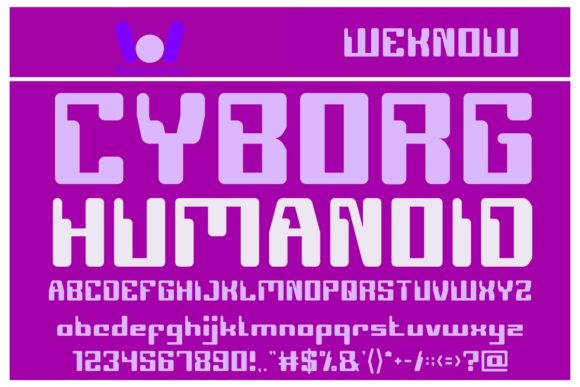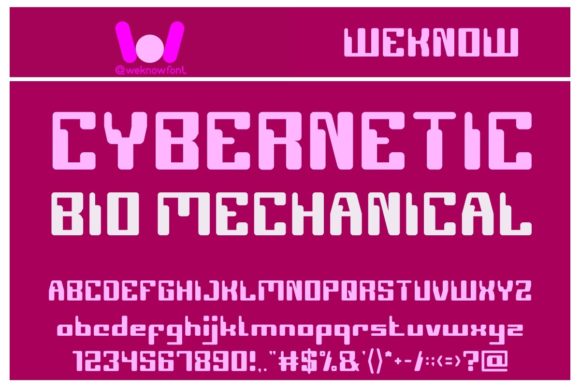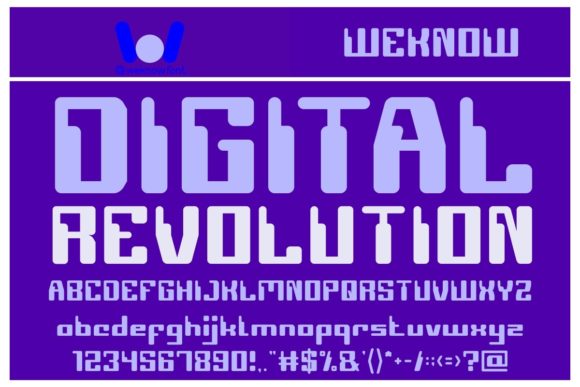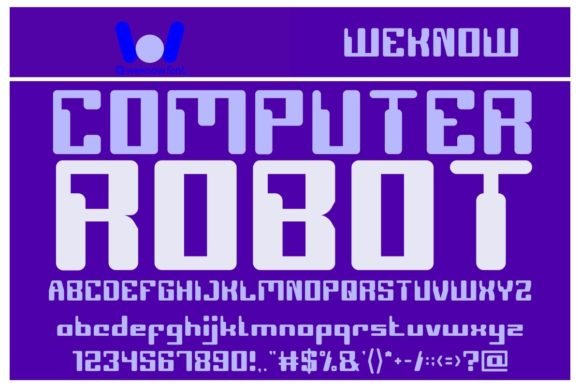
Introduction to Computer Robot Font
Computer Robot is a Techno LCD themed display font suitable for logos, logotypes, headlines, corporate identity, brand identity, the apparel industry, posters, music, movies, games, magazines, books, comics, cartoons, YouTube, Instagram, website, or any of your creative design projects.
Key Features of Computer Robot Font